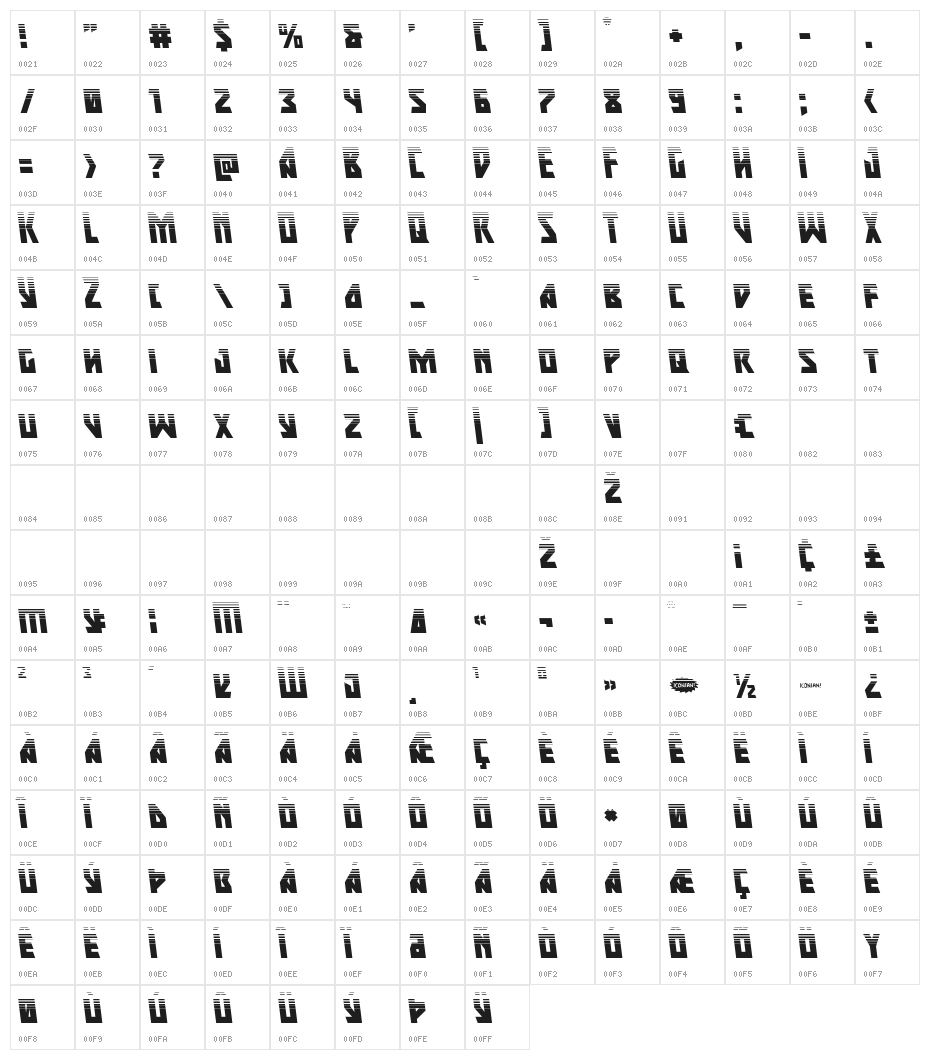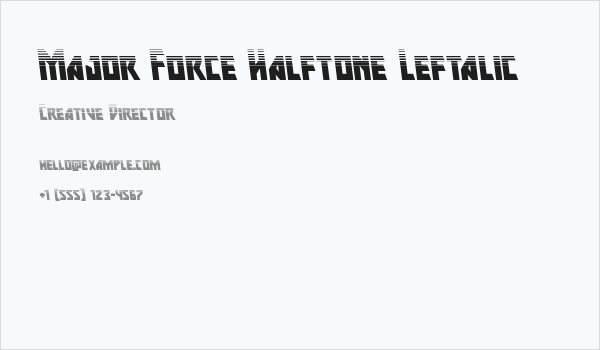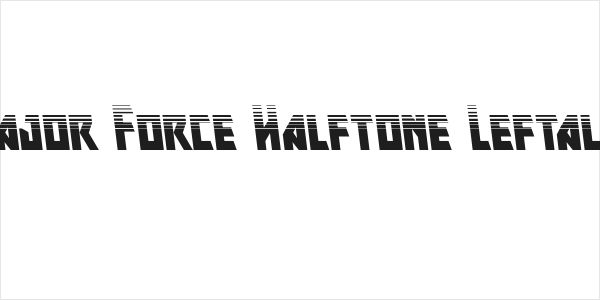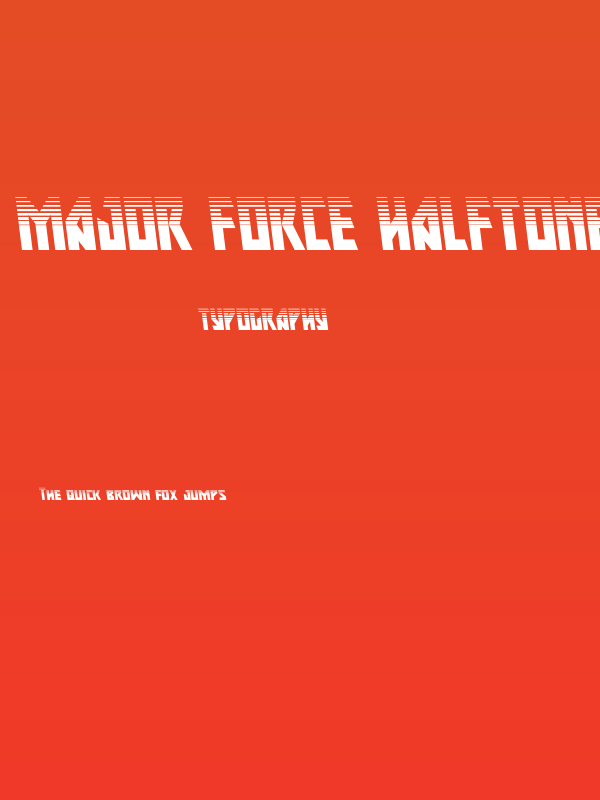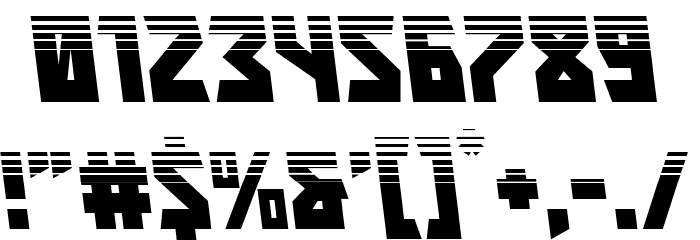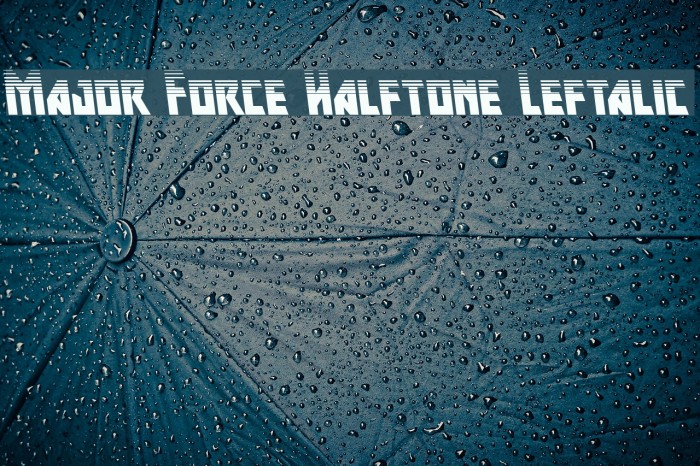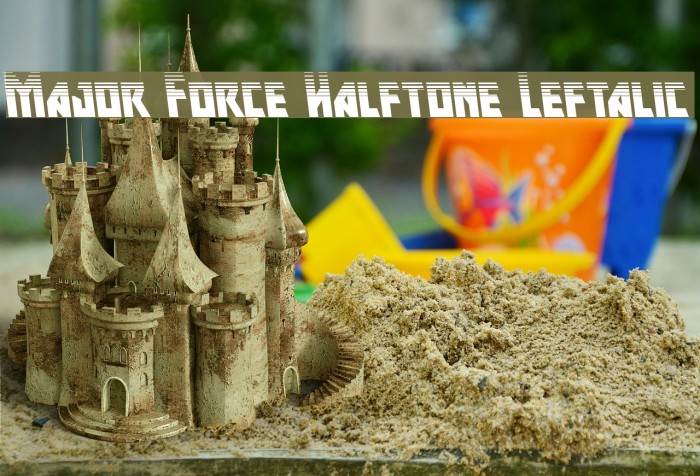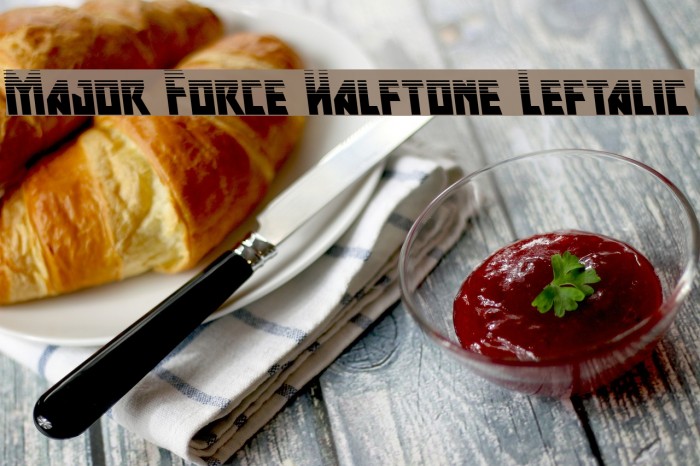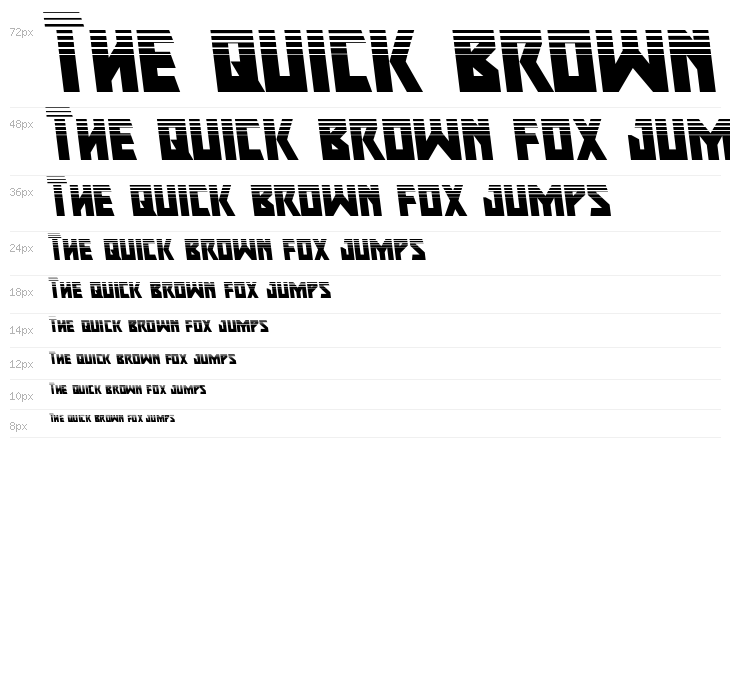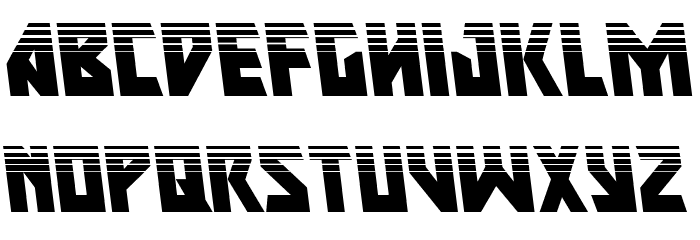
Major Force Halftone Leftalic Font
This font features a bold, geometric design with a distinct halftone effect, creating a dynamic and futuristic appearance. The characters are constructed with horizontal lines that gradually decrease in thickness, giving a sense of motion and depth. The angular shapes and sharp edges contribute to its modern and edgy style, making it stand out in any design. The uppercase and lowercase letters maintain a consistent style, while the numerals and special characters complement the overall aesthetic. This font is ideal for projects that require a strong visual impact and a contemporary feel.
| Overall Style | Futuristic, Modern |
| Proposed Projects | Ideal for posters, album covers, video game titles, and branding that requires a modern and edgy look. |